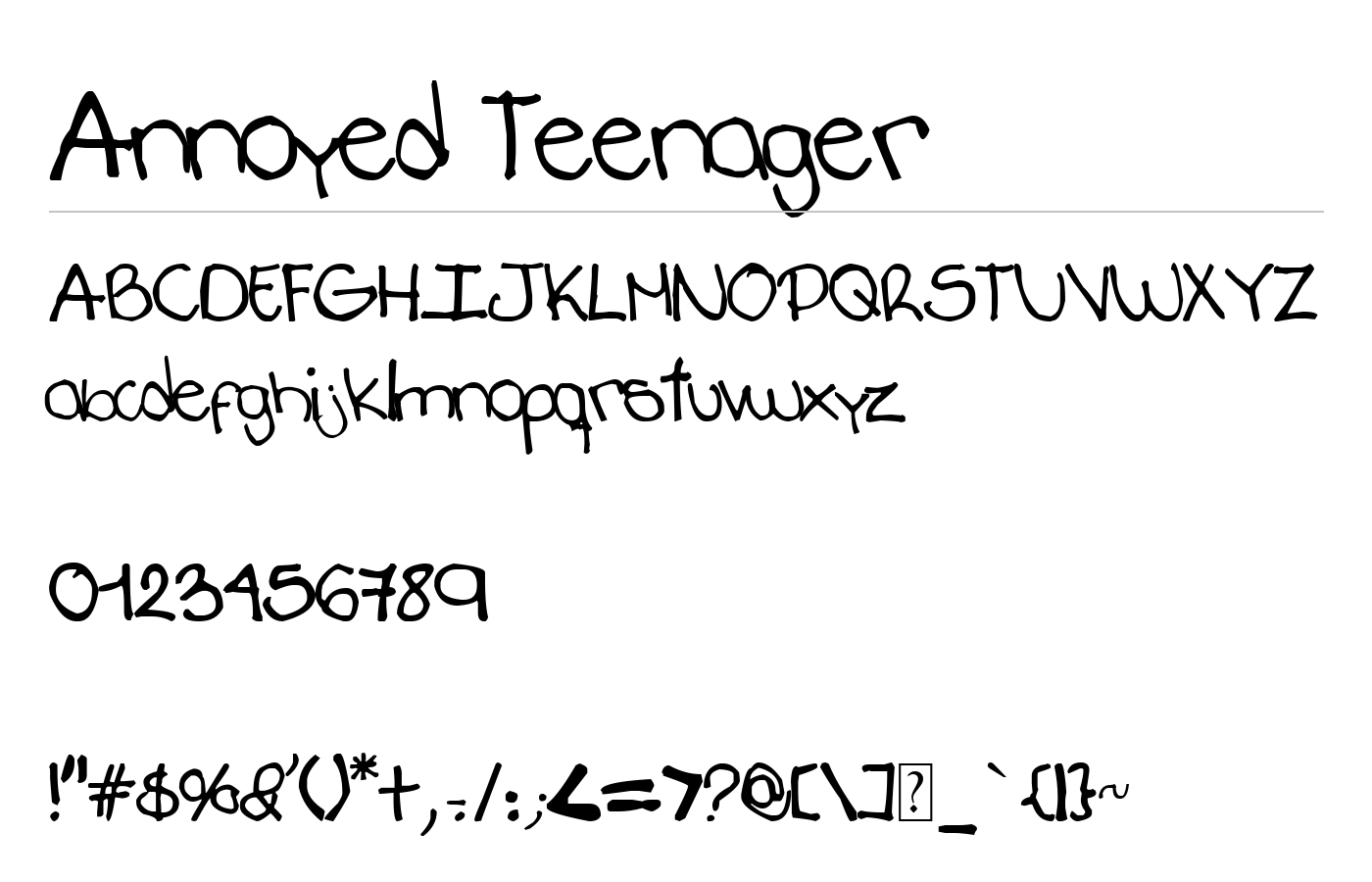
Annoyed Teenager Font is a playful, hand-drawn sans serif typeface that mimics the casual, slightly rebellious handwriting of youth. Its irregular, quirky letterforms with uneven stroke widths give it a relaxed and informal feel, perfect for projects aiming to capture a fun, edgy, or personal touch. This font works well for creative headlines, youth-oriented branding, or any casual design where a unique, expressive voice is desired.
Annoyed Teenager Font